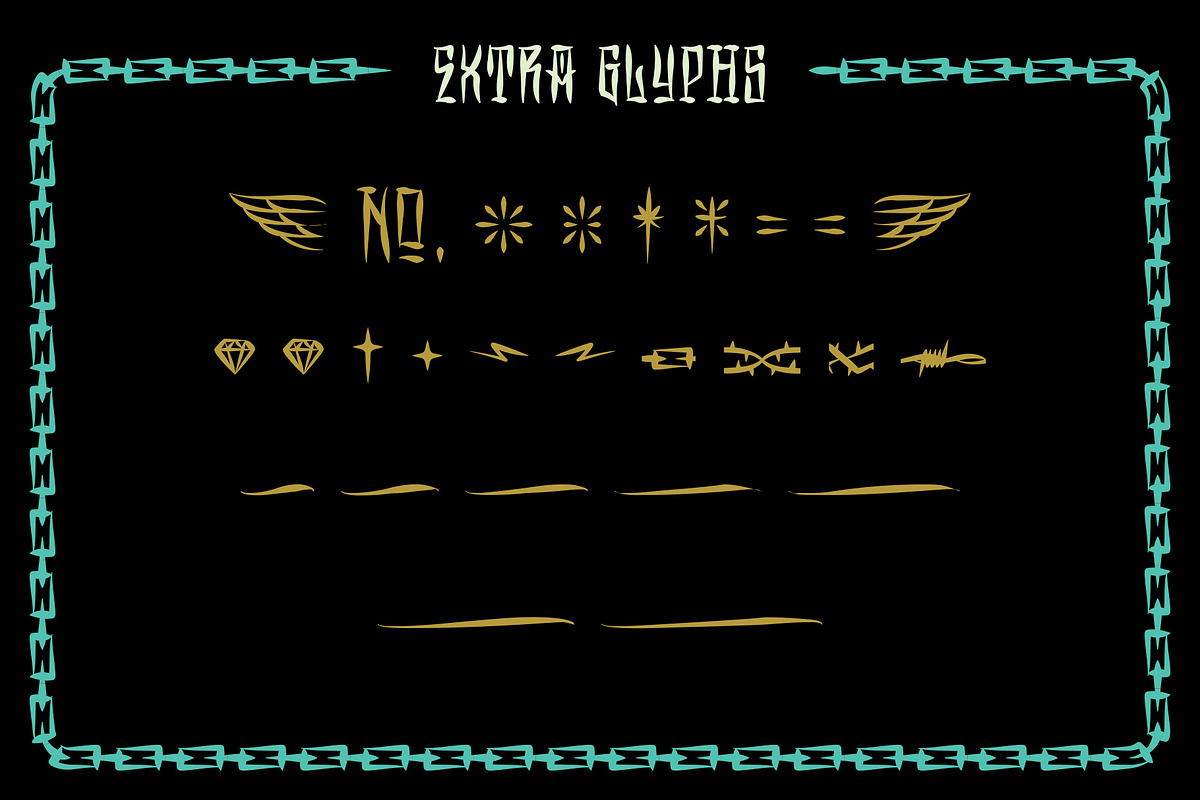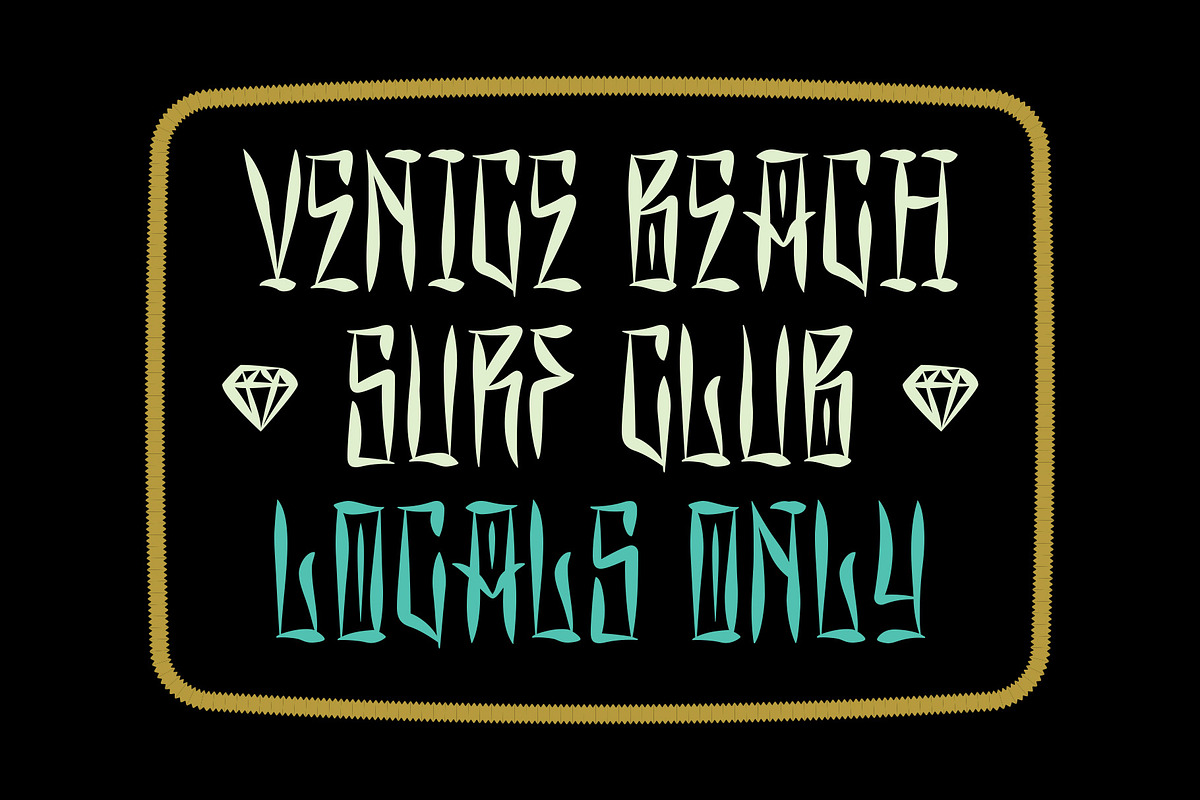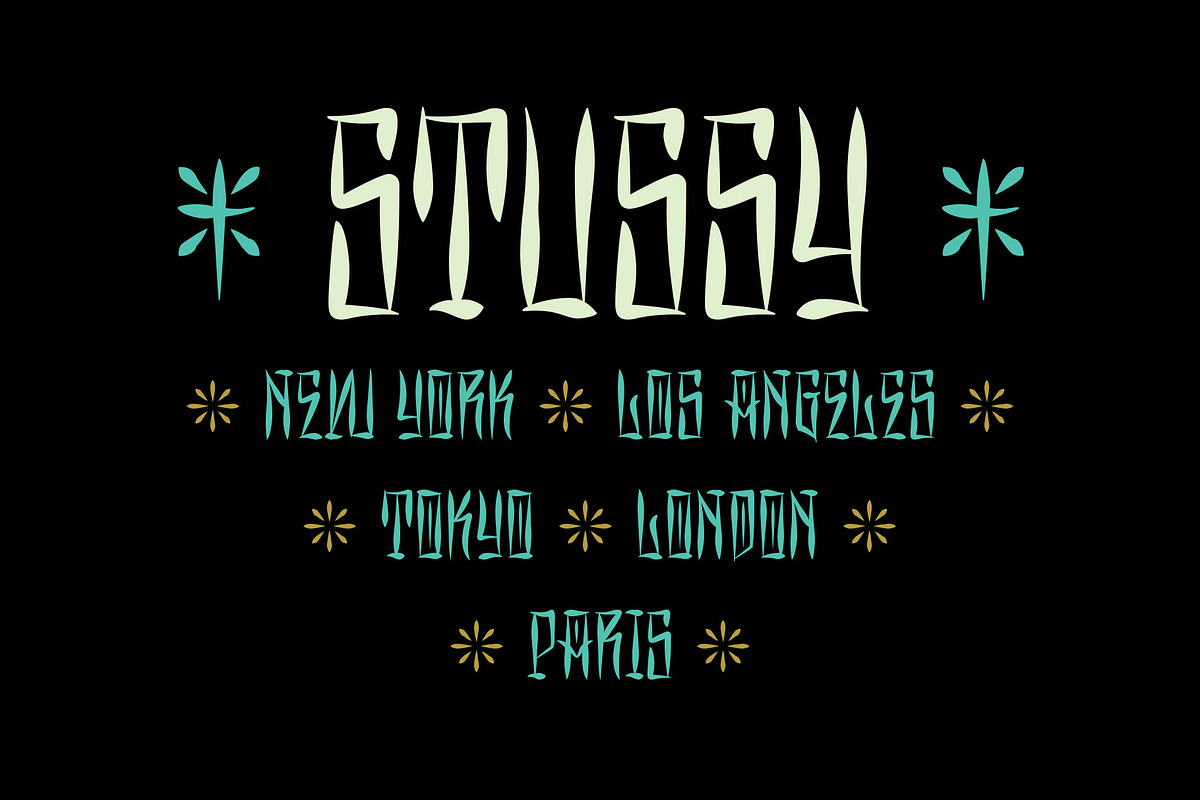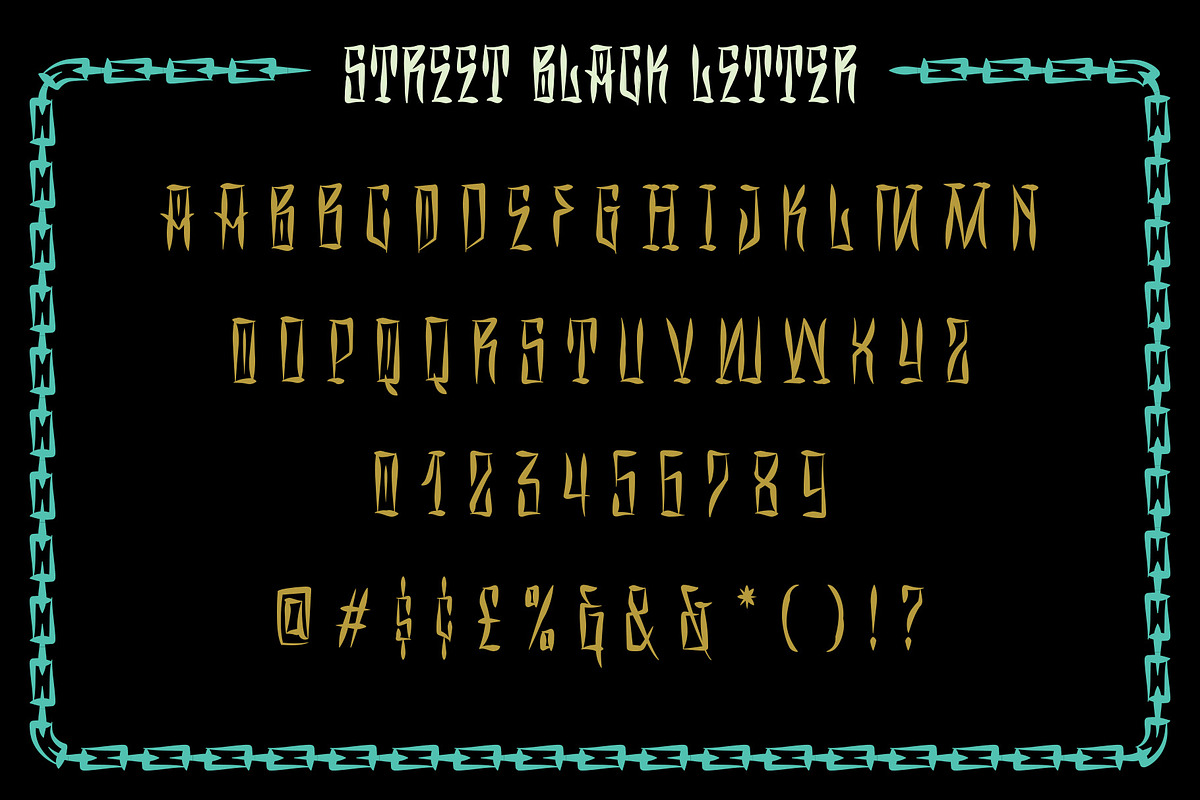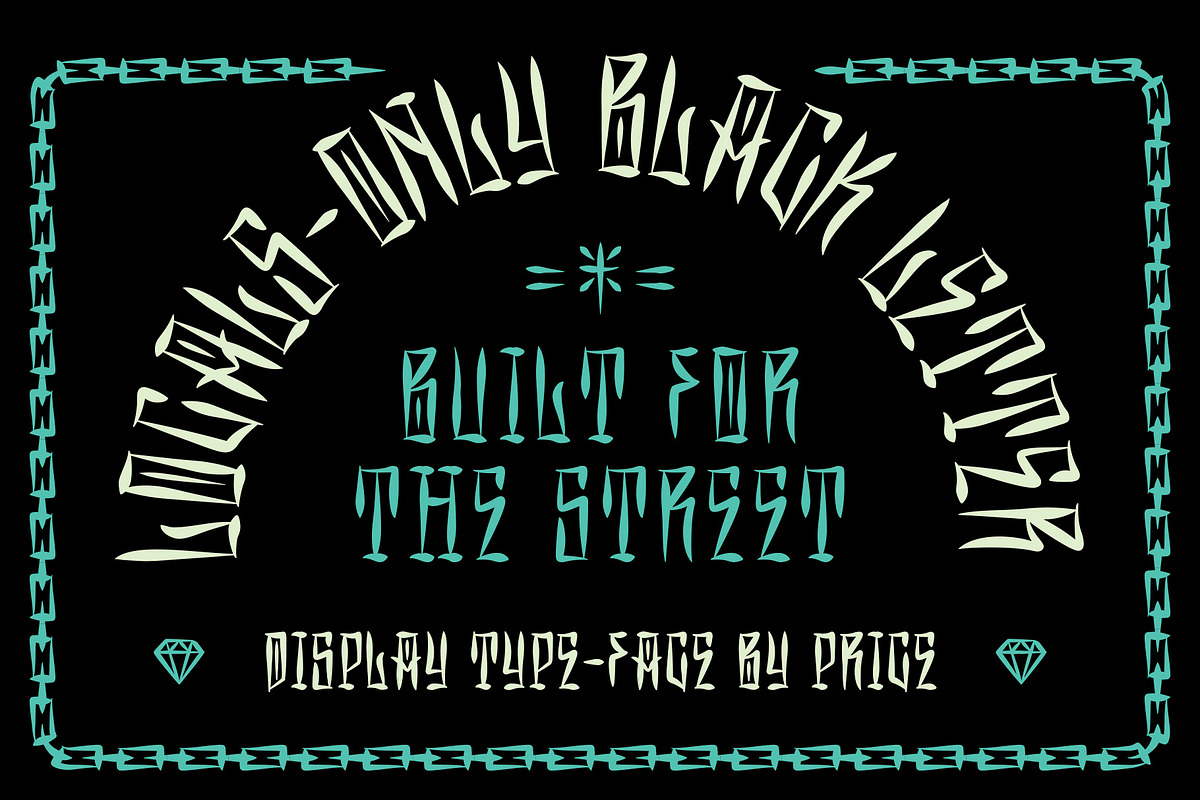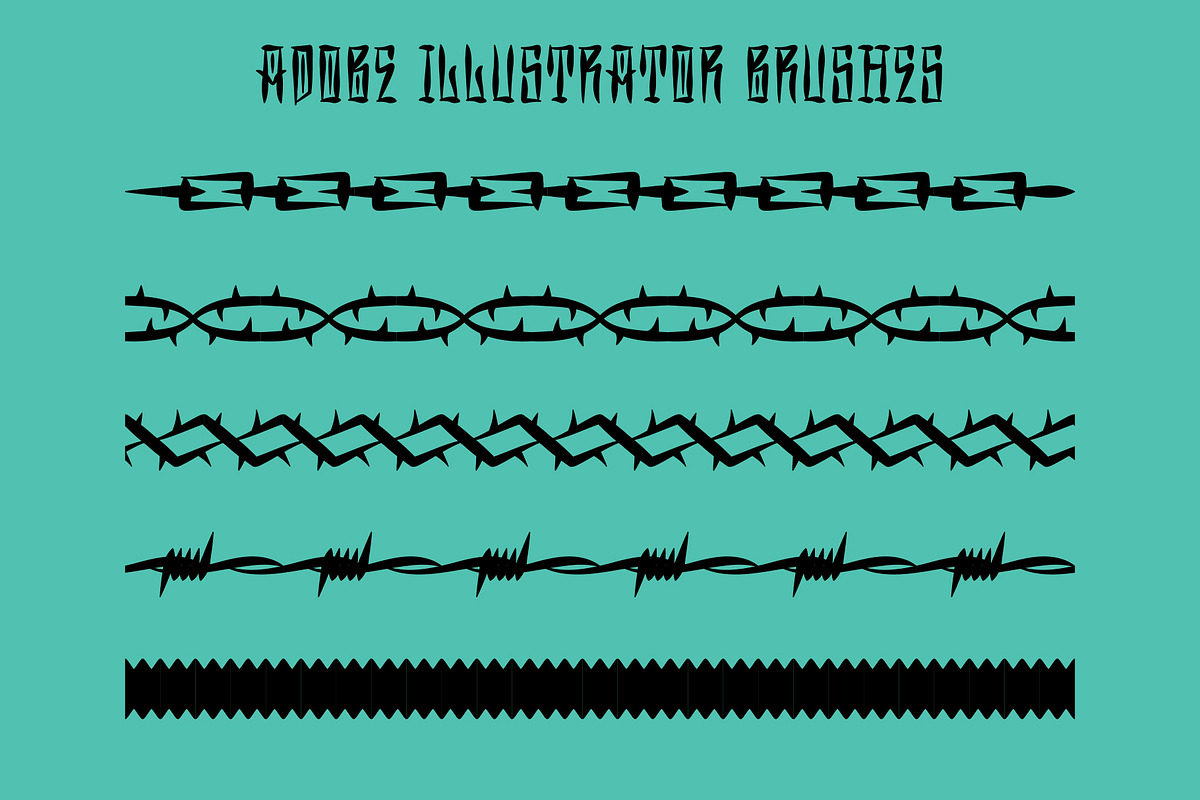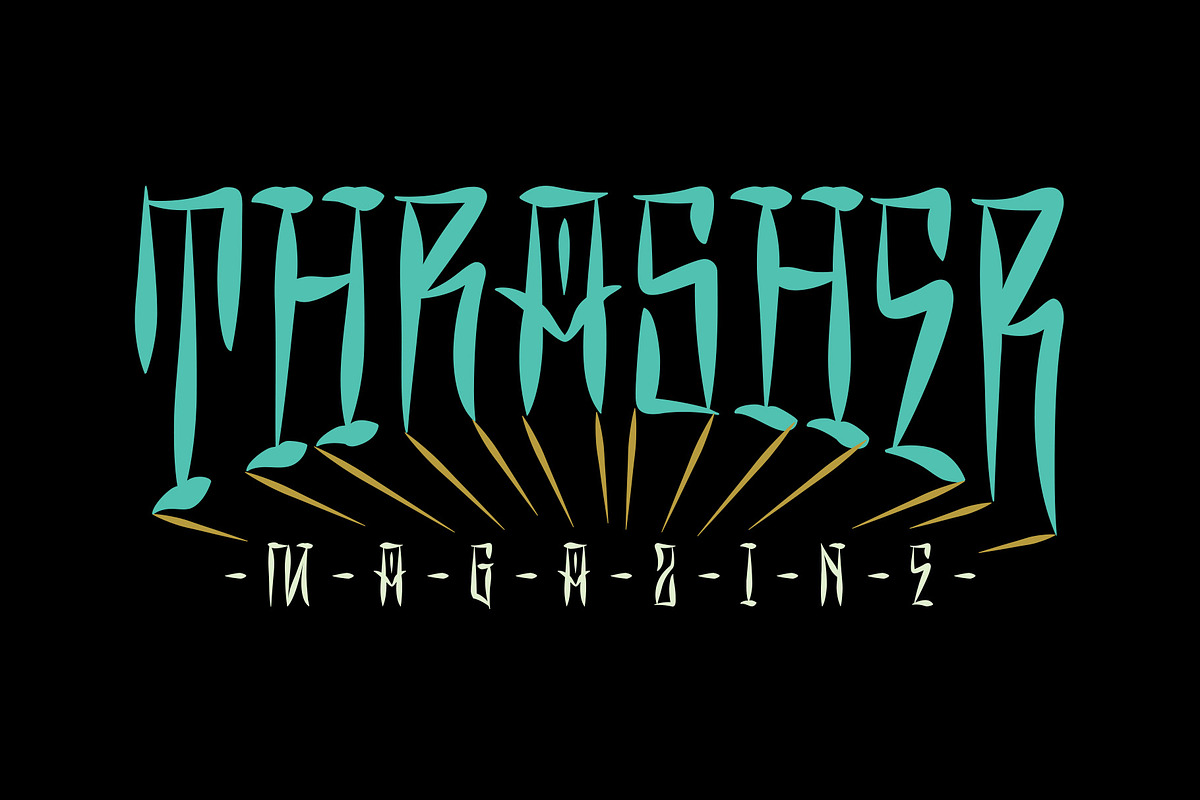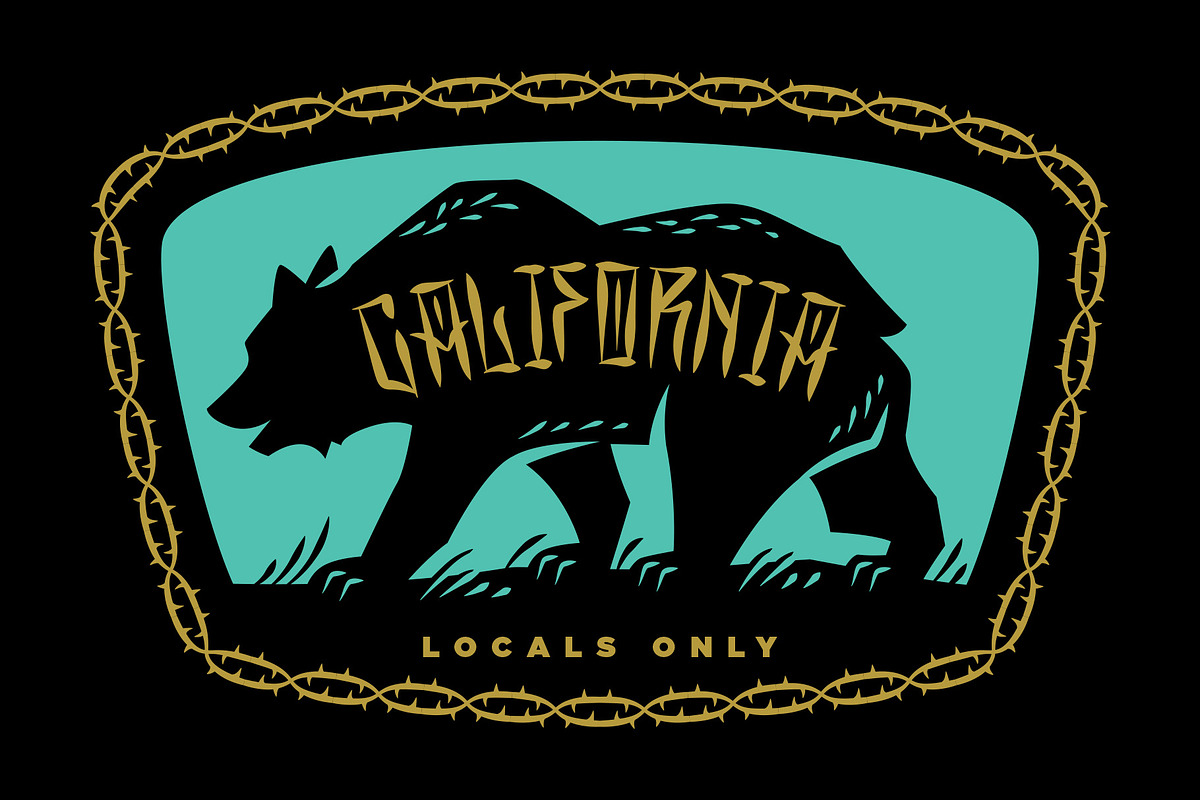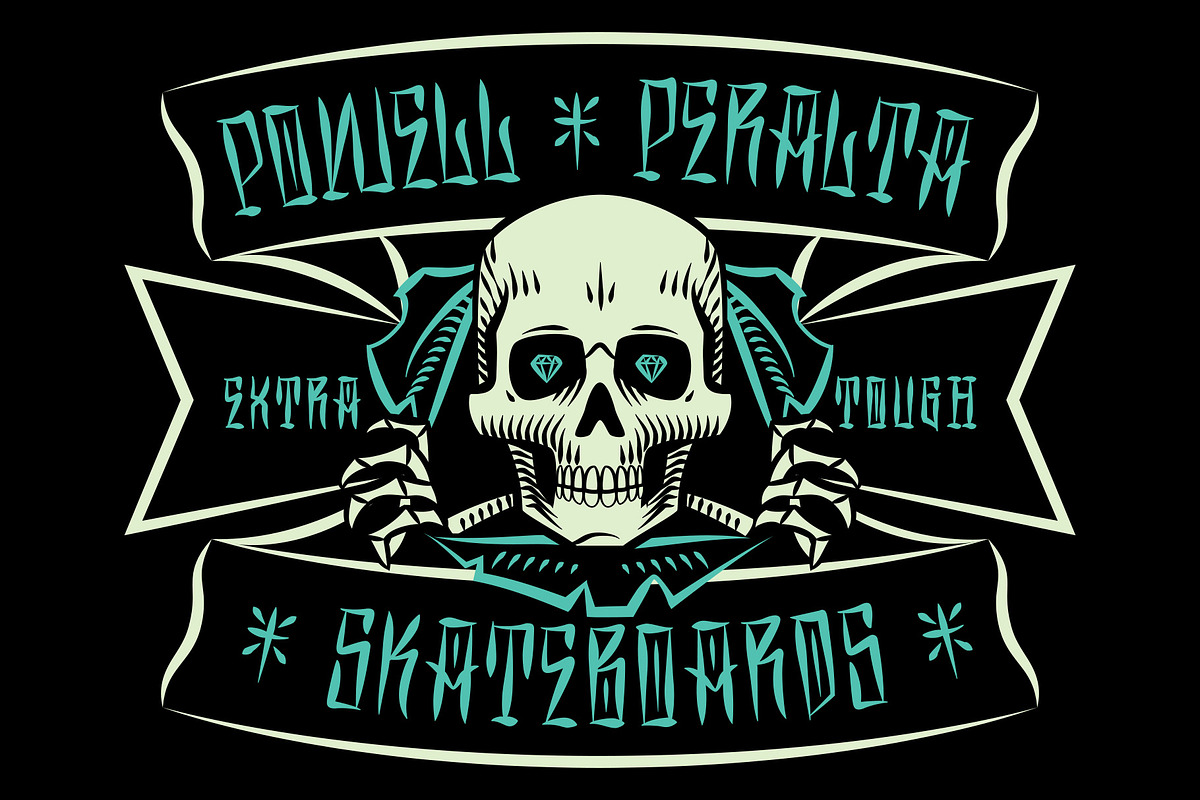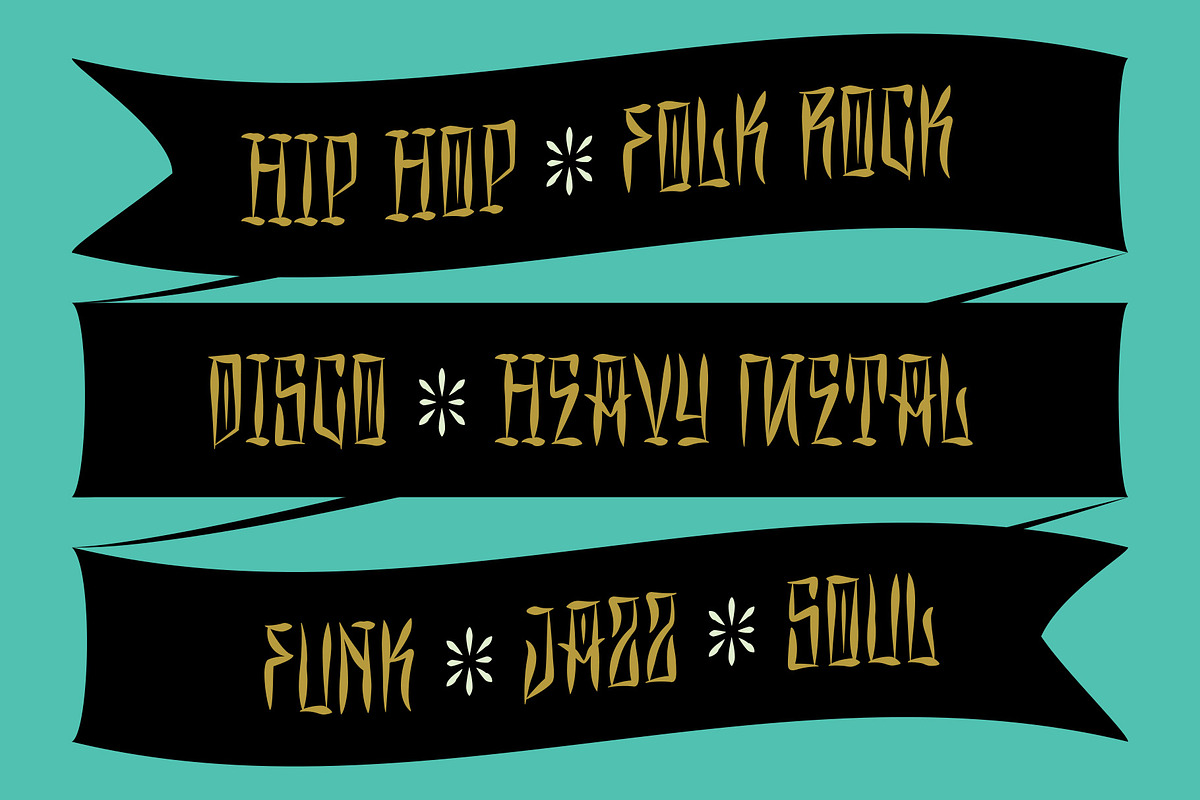
Locals Only Black Letter
Locals Only is a bold and expressive font inspired by the street culture of Southern California, blending the raw aesthetics of graffiti with the intricate line work of traditional tattoo art. Perfect for streetwear design, whether used for bold logos, statement pieces, or graphic tees.